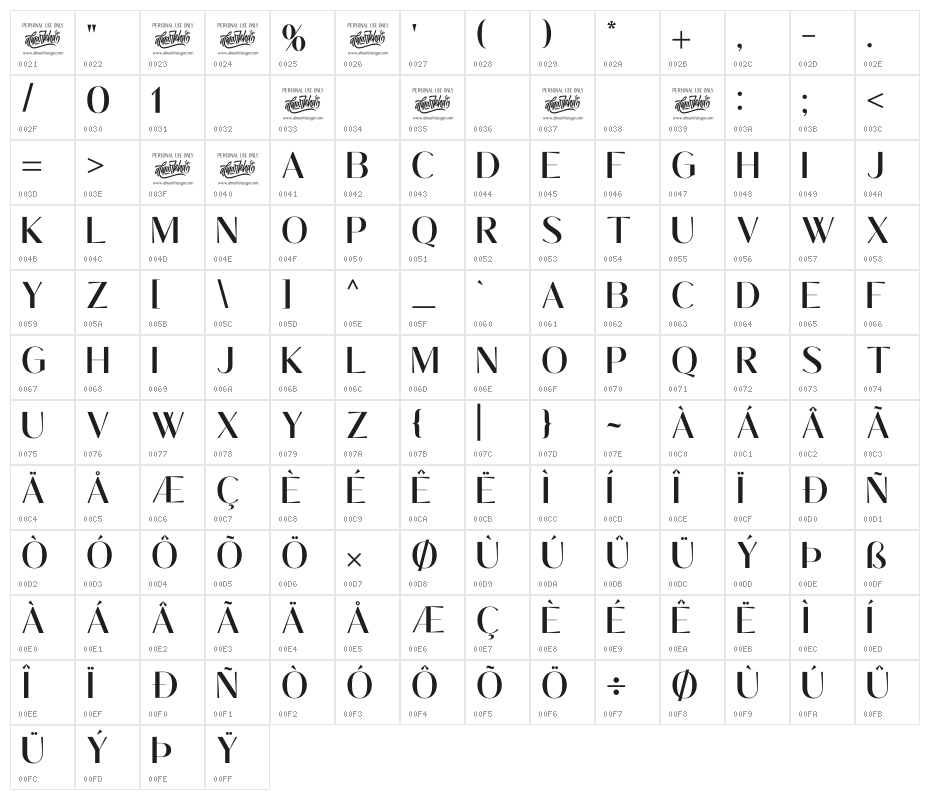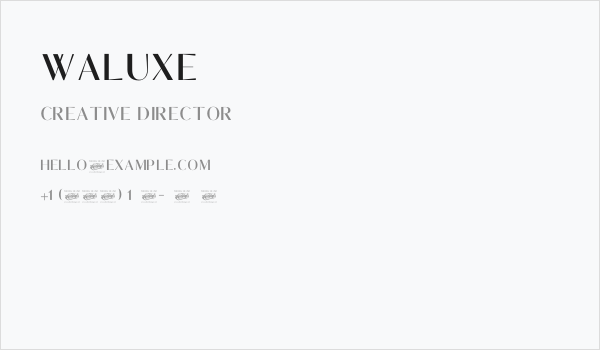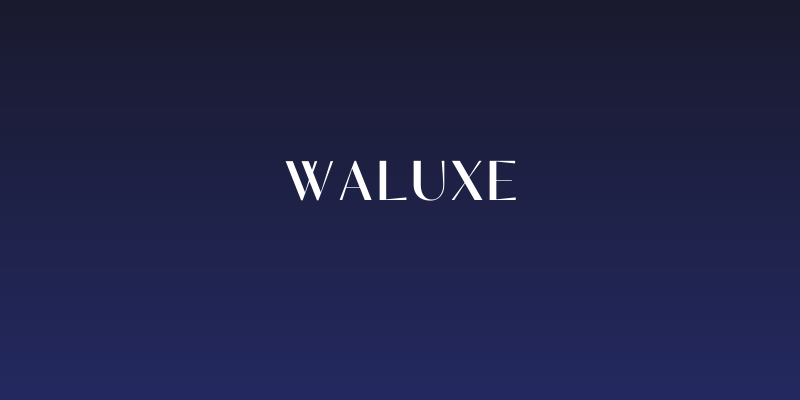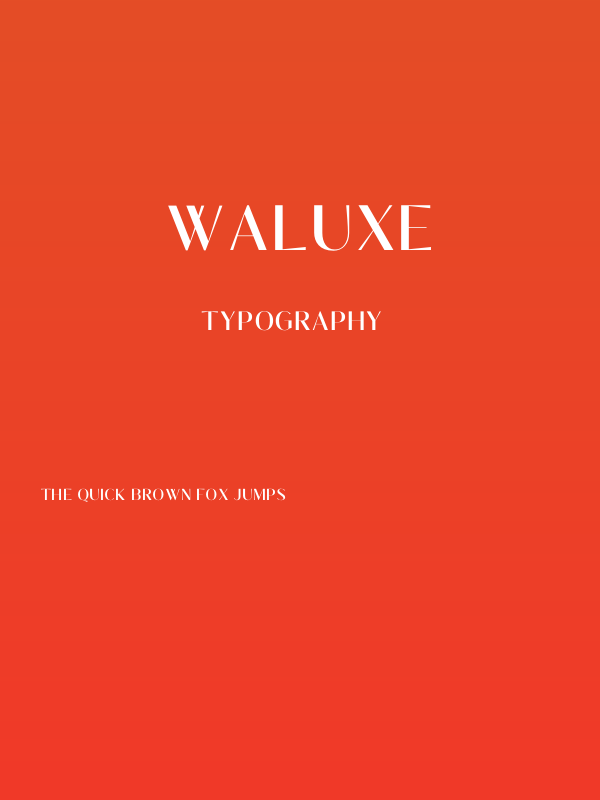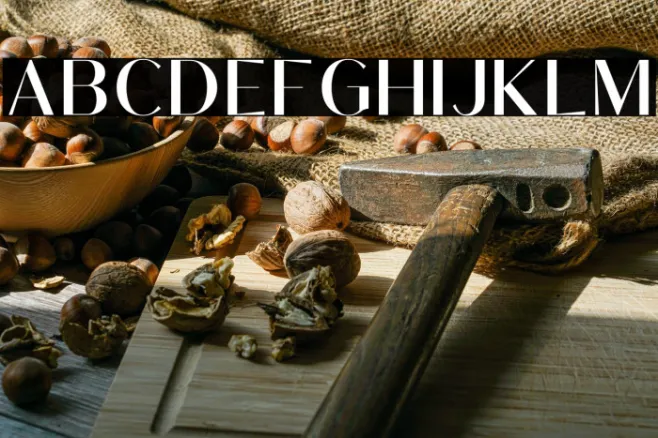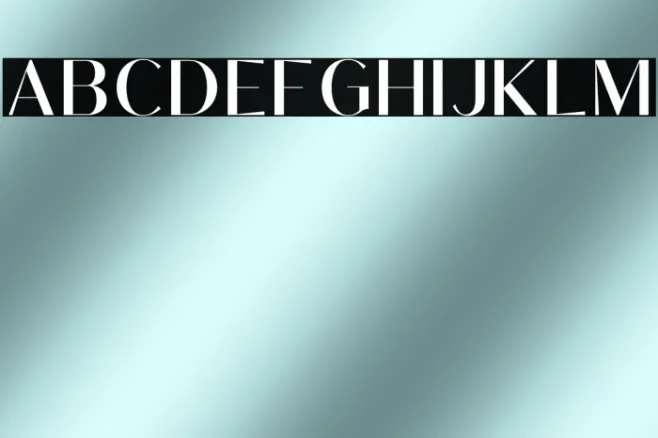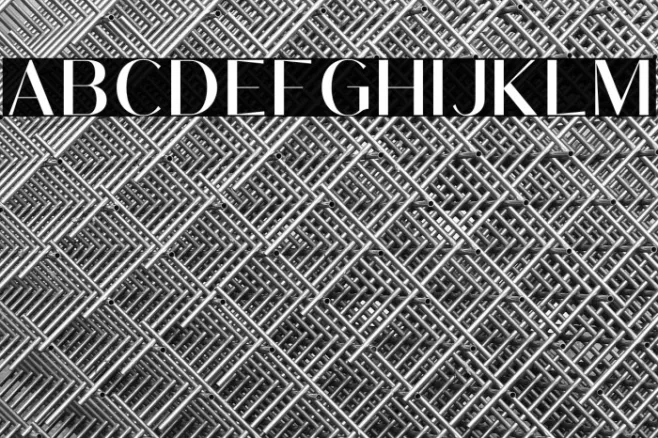
Waluxe Font
Waluxe Description
This font features a modern and elegant design with high contrast between thick and thin strokes, giving it a sophisticated and stylish appearance. The uppercase letters are bold and impactful, while the lowercase letters maintain a consistent style that complements the uppercase. The numerals and special characters are designed to match the overall aesthetic, making this font versatile for various applications. The sharp angles and clean lines contribute to its contemporary feel, making it suitable for both digital and print media.
| Proposed Projects | Ideal for branding, editorial design, luxury product packaging, and high-end fashion magazines. |